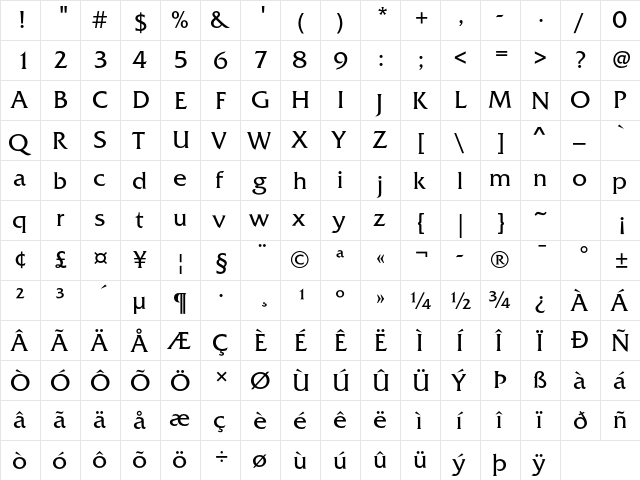
Friz Quadrata Std Regular
| Designer | Ernst Friz |
Design Context for Friz Quadrata Std Typeface
Friz Quadrata Std takes a measured approach to typography — its balanced proportions and neutral character make it a reliable workhorse for both digital and print work.